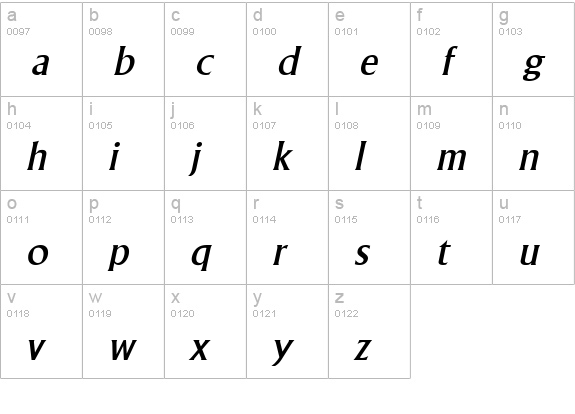
Alberta Italic is a distinctive, italic variant in the Alberta typeface family \xE2\x80\x94 well suited to design and typography projects.
Alberta Italic font exudes elegance and sophistication with its sleek and modern design. Its slanted letters add a touch of flair to any project, making it perfect for use in headings, quotes, and creative designs. The fluid curves and sharp angles of Alberta Italic create a sense of movement and energy, drawing the eye in and capturing attention. What sets Alberta Italic apart is that it is not only visually stunning, but also easily accessible. This exquisite font is available for free download at FontsMarket.com, allowing designers and creators to add a touch of luxury to their projects without any cost. Whether you're working on a website, branding materials, or print designs, Alberta Italic is sure to elevate your work and make a lasting impression. Embrace the beauty and versatility of this font today by downloading it for free at FontsMarket.com.